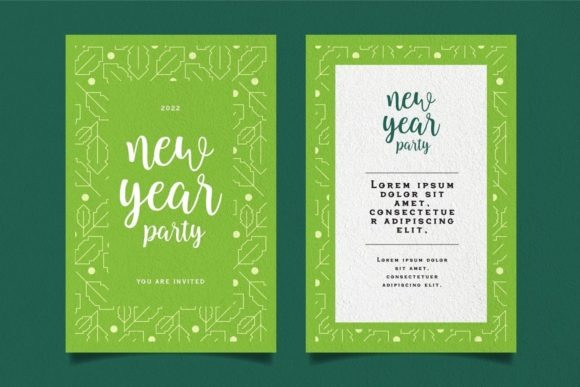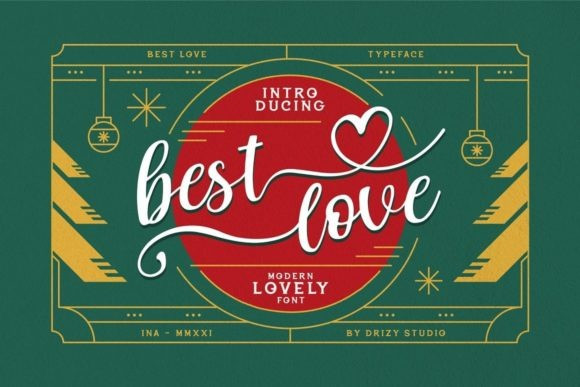
Best Love Typeface
Best Love Font is a modern handwritten font especially created for romantic or Christmas designs. It works well with projects that need a personal touch and an authentic feel. This font is PUA encoded which means you can access all of the glyphs and swashes with ease!